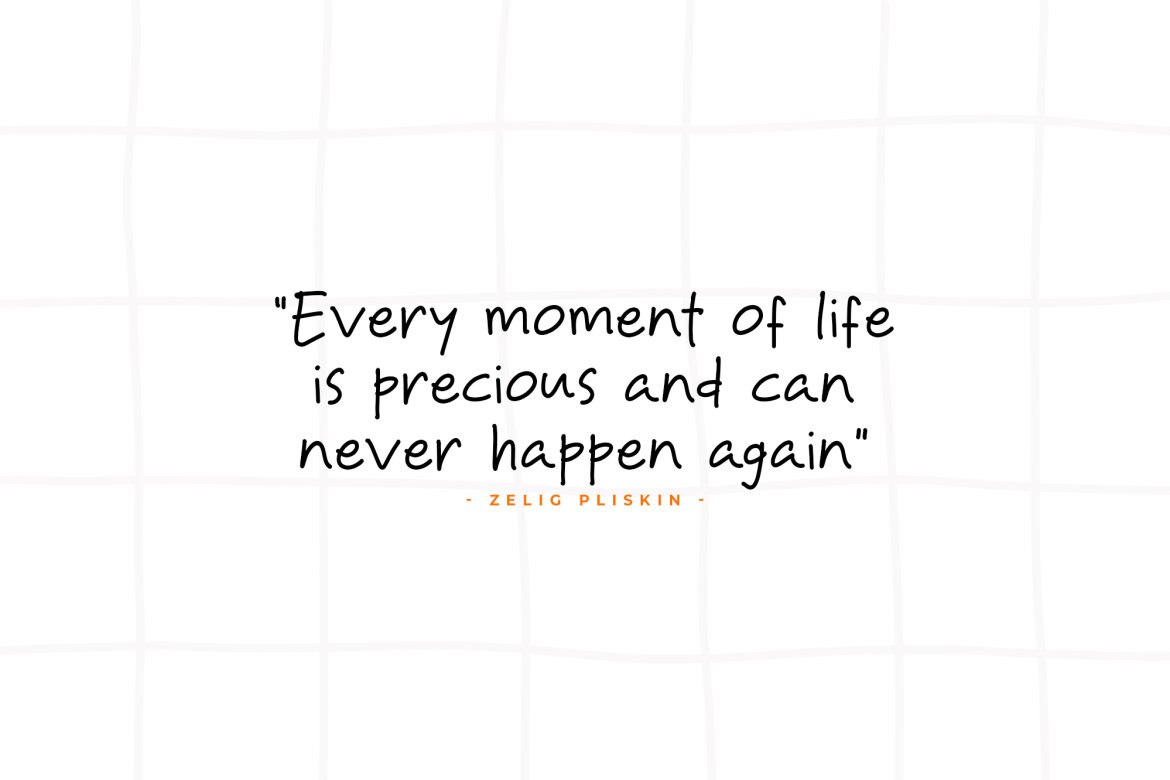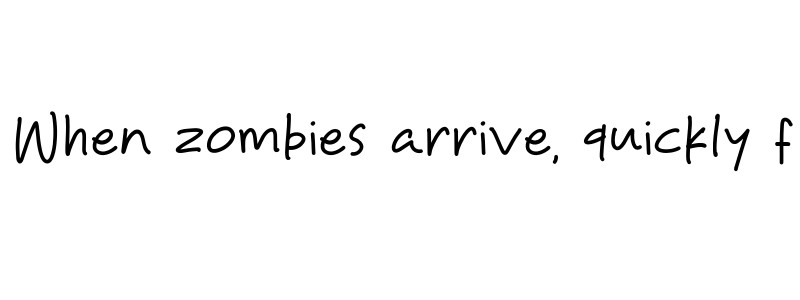
Hope Take FREE Font
Hope Take
Hope Take is a modern and cute handwriting font perfect for posters, logos, magazines, book covers, banners, and many more! Get this amazing font, and use it to create lovely designs. It can easily be matched to an incredibly large set of projects, so add it to your creative ideas and notice how it makes them stand out!